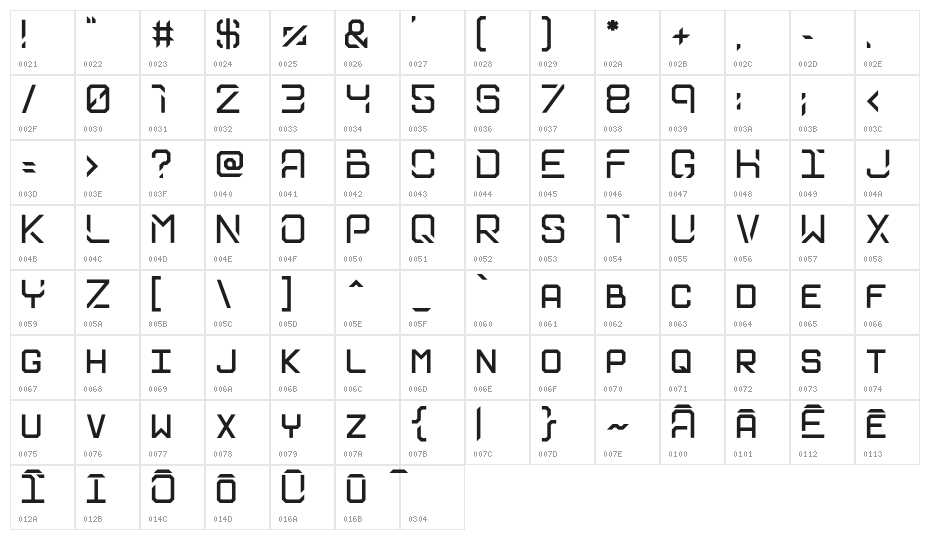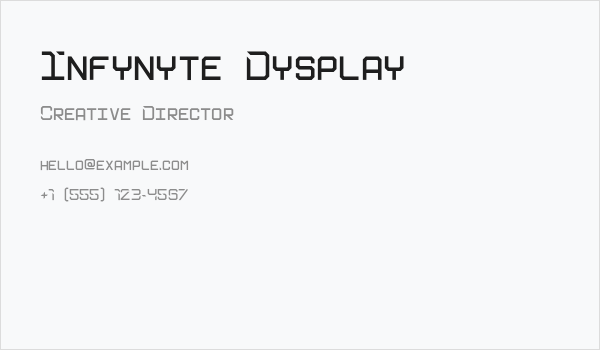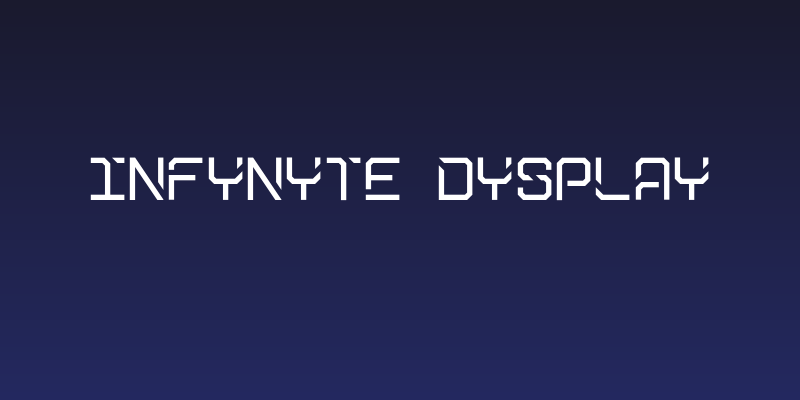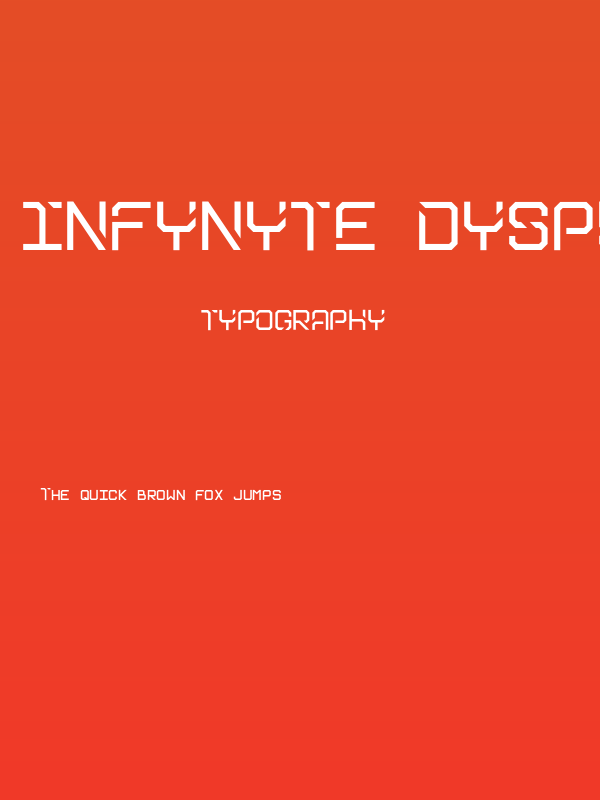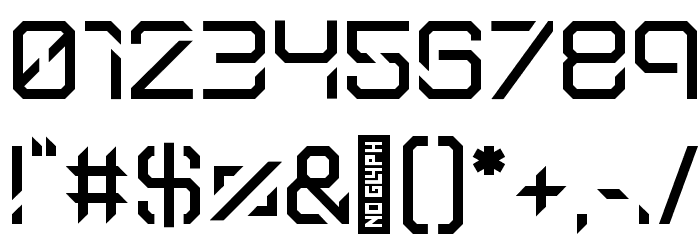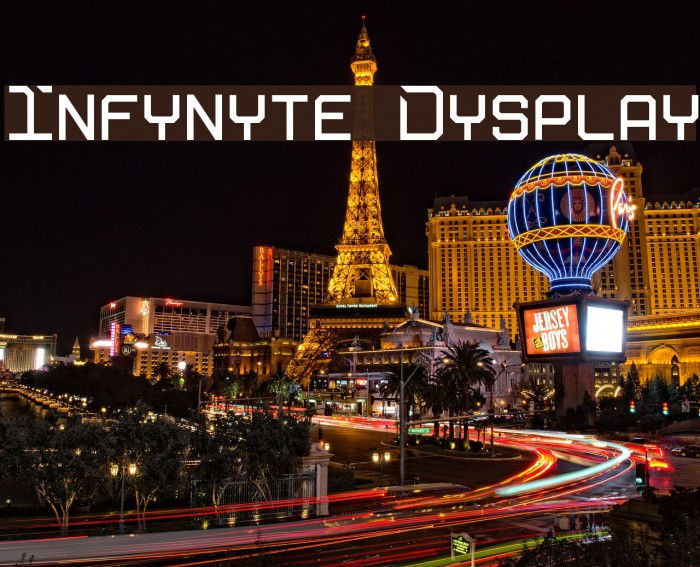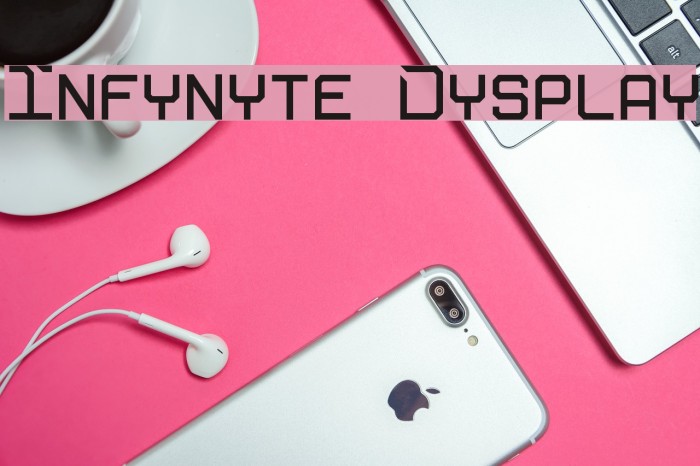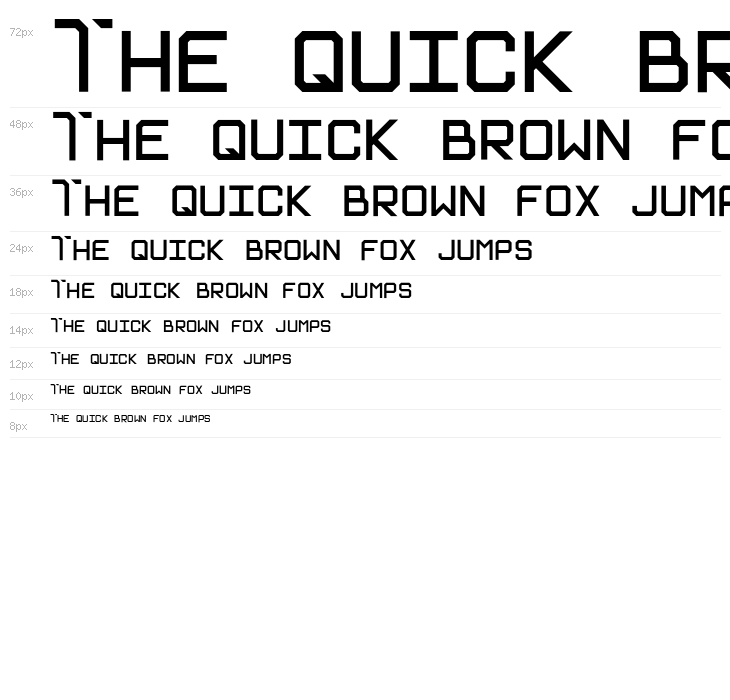
Infynyte Dysplay Font
Infynyte Dysplay Description
This font features a futuristic and geometric design, characterized by its angular and segmented letterforms. The uppercase and lowercase letters maintain a consistent style, with sharp edges and a mechanical feel. The numerals and special characters follow the same design principles, ensuring a cohesive look across all glyphs. The font's unique style makes it stand out, with a modern and tech-inspired aesthetic that is both bold and eye-catching.
| Proposed Projects | Ideal for technology branding, sci-fi movie posters, video game titles, and digital interfaces. |